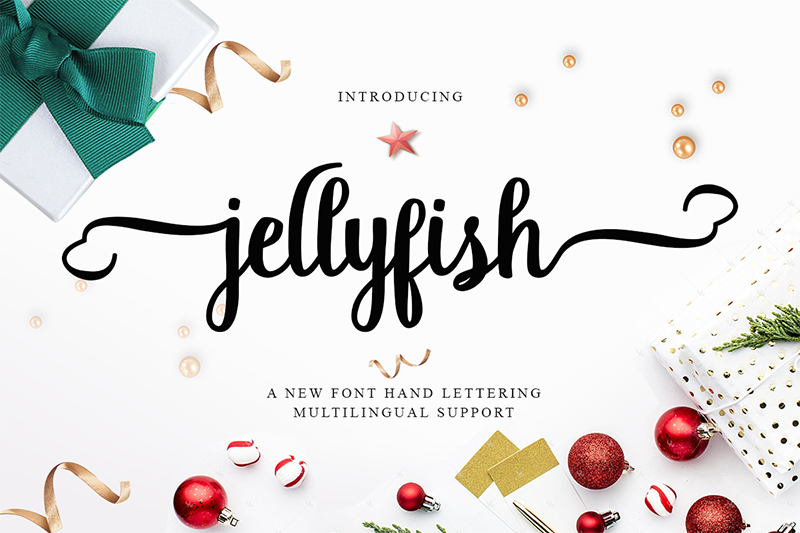
jellyfish Script is modern stylish copperplate calligraphy fonts, combines from copperplate to contemporary typeface with a dancing baseline, classic and elegant touch. Can be used for various purposes.such as headings, signature, logos, wedding invitation, t-shirt, letterhead, signage, lable, news, posters, badges etc. https://fontbundles.net/the-brilliant-font-bundle-v/rel=NbuTD2 MY STORE - https://fontbundles.net/best-font-studio/349870-jellyfish-script/rel=NbuTD2 - https://crmrkt.com/RdDb9x Any question, drop me email to Hello.Bestfontstudio@gmail.com Paypal account for donation : https://www.paypal.me/bestfontstudio Thank You, Best Font Studio FOLLOW MY UPDATE FOR UPDATE: - https://twitter.com/bestfontstudio - https://www.facebook.com/bestfonts More... |